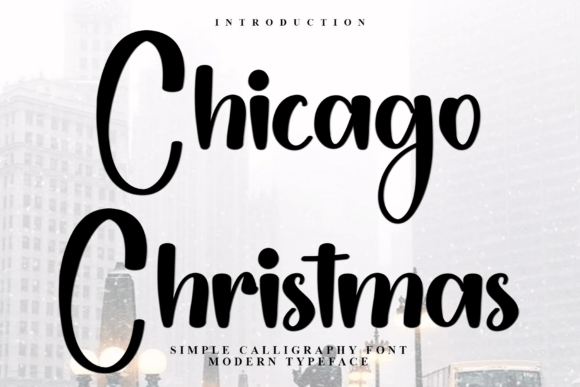
Deck the Halls with a Touch of Elegance: Discover the Chicago Christmas Font
As the holiday season approaches, many of us find ourselves in a flurry of creative activity, searching for the perfect font to add a touch of magic to our designs. And then, it hits us – a spark of inspiration that sets our imagination ablaze. For designers and crafty enthusiasts alike, finding the right font can be a game-changer. This is where the Chicago Christmas Font comes in, a beautiful and eye-catching typeface designed to bring a soft, unique touch to your work.
With its distinctive strokes and versatility, the Chicago Christmas Font is the perfect addition to any design project, craft, or creative endeavor. Whether you’re working on a holiday card, a gift tag, or a festive website, this natural font style will elevate your designs, making them appealing to a wide range of audiences across different artistic and creative fields.
Chicago Christmas Font Key Features
- Font Family: Chicago Christmas Font is a display font designed to evoke the spirit of Christmas.
- Size: This font comes in a single weight, ideal for use in bold, eye-catching typography.
- Unique Characteristics: The font features intricate, hand-drawn designs, including ornaments, swashes, and flourishes, perfect for adding a touch of elegance to holiday designs.
Chicago Christmas Font Review
I recently had the chance to work with the Chicago Christmas Font and I have to say, it’s a unique and festive addition to any design project.
- Festive Feel: The font exudes a warm and inviting atmosphere, perfect for holiday-themed projects.
- Distinctive Characters: The font’s irregular shapes and letterforms add a touch of whimsy and personality to your design.
- Limited Legibility: Some letters may be difficult to read, especially at smaller font sizes.
- Not Suitable for Body Text: Due to its decorative nature, this font is best used for headlines, titles, and other emphasis areas.
While the Chicago Christmas Font has its limitations, it’s a great choice for adding a festive touch to your designs. Its unique characters and customizable features make it a great addition to any holiday-themed project. Just be mindful of its limitations and use it sparingly for maximum impact.
The Chicago Christmas Font is ideal for:
- Christmas-themed designs and graphics.
- Holiday cards and invitations.
- Gift tags and labels.
- Seasonal social media graphics.